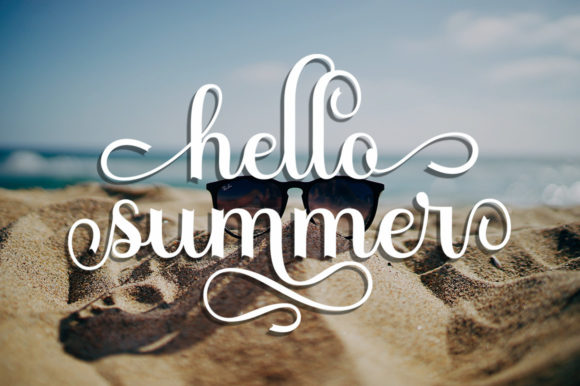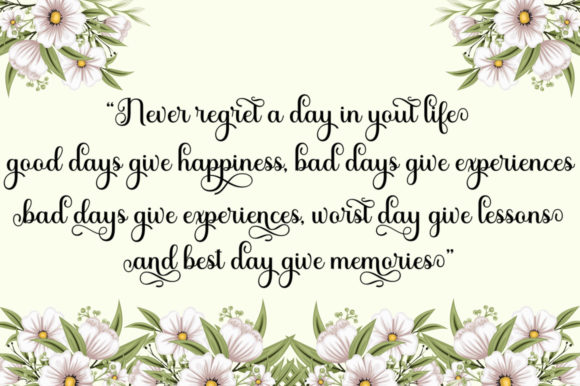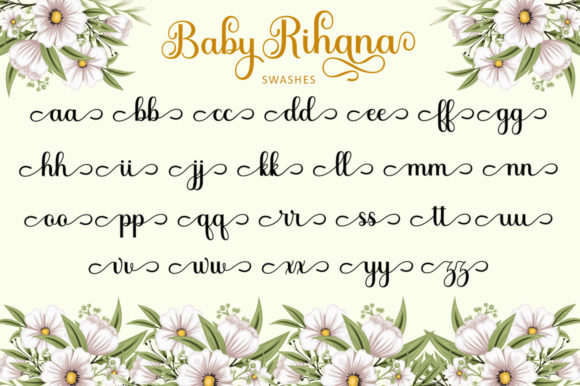
About Baby Rihana Font
Baby Rihana is a smooth, elegant and delicate handwritten font. It features well balanced characters, and as a result, it fits into a wide range of designs. This font is PUA encoded which means you can access all of the glyphs and swashes with ease!